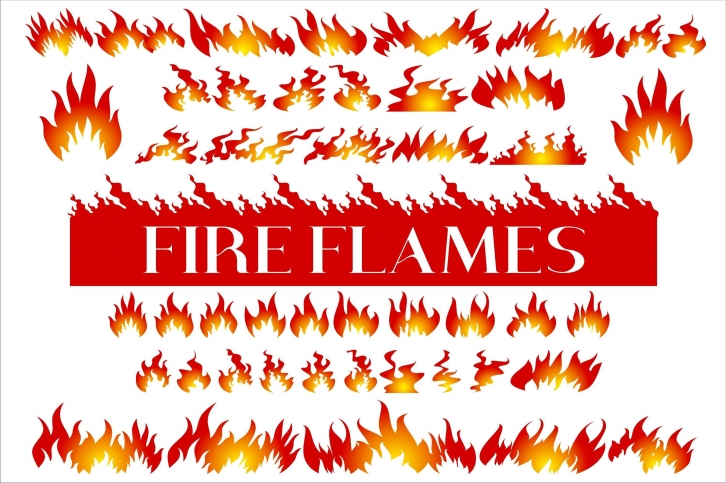
Fire Flames is a font with a flame. This font is a collection of various types of fire in various shapes and illustrations. This font will be an incredible asset to your fonts’ library, as it has the potential to enhance any creation. For use, it fits perfectly with the cover design of books, magazines, comics and other cartoon-themed designs